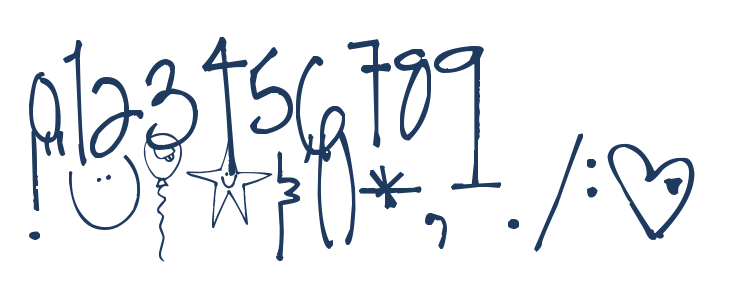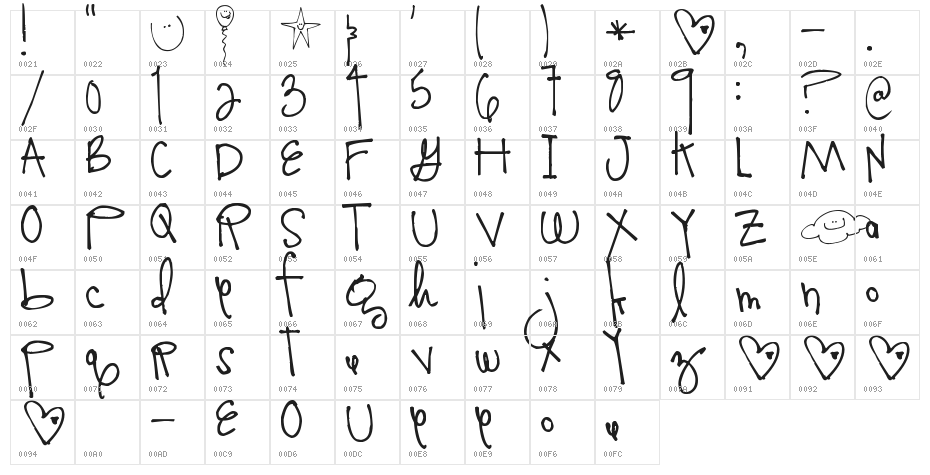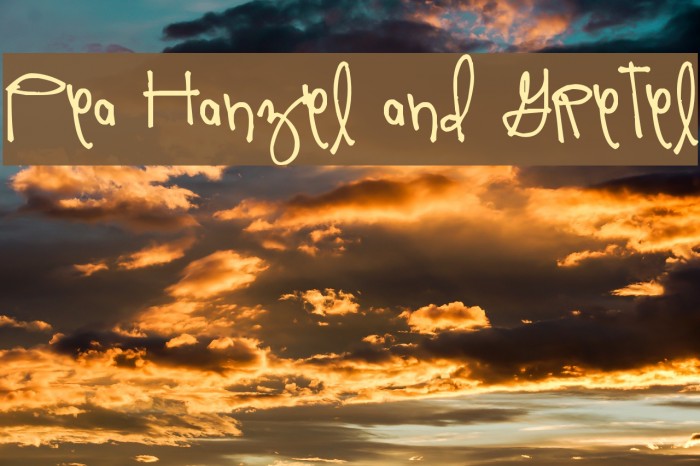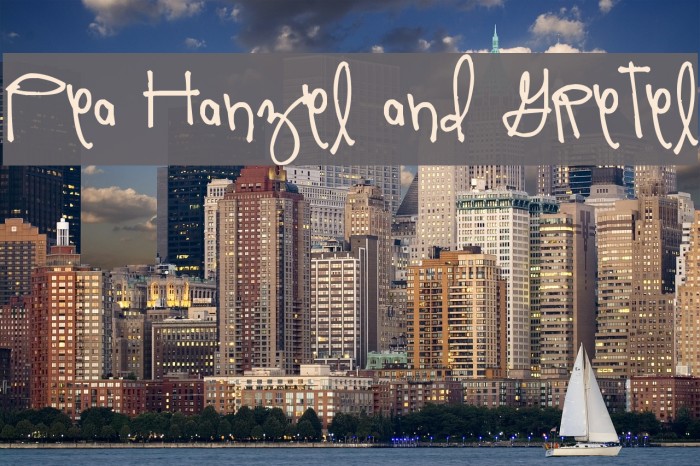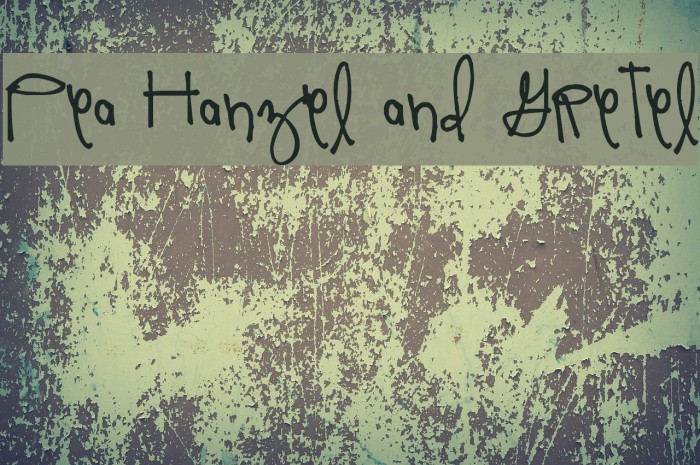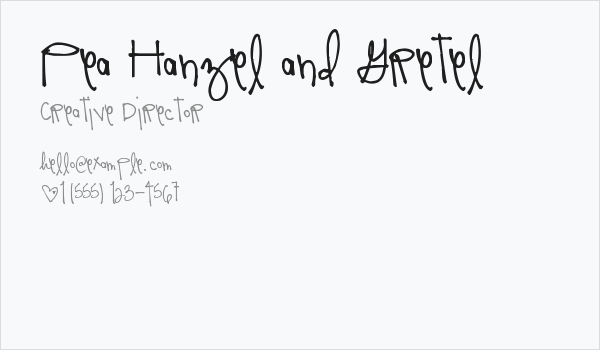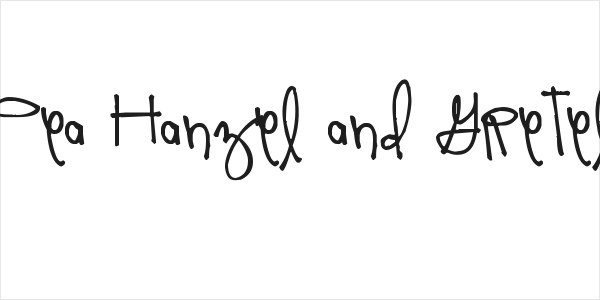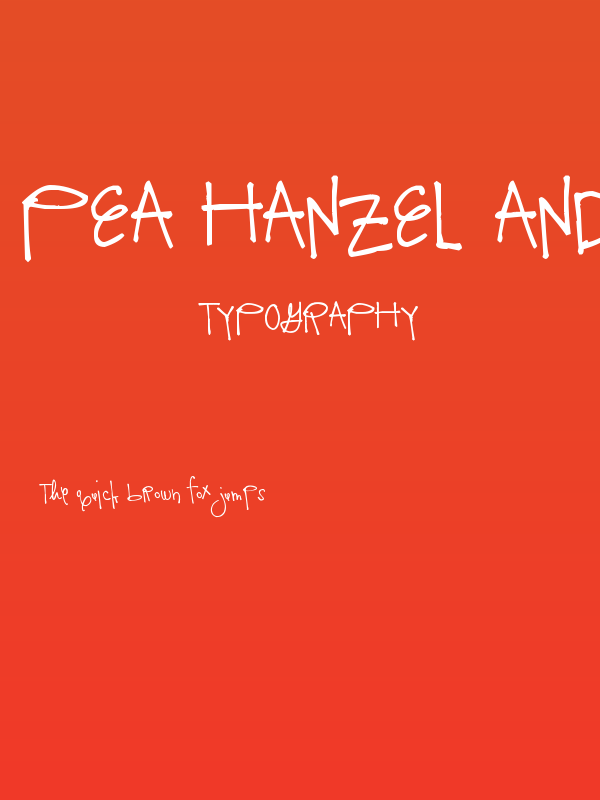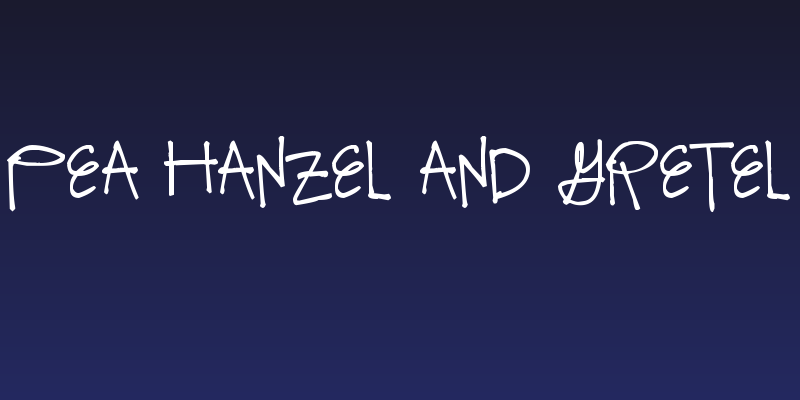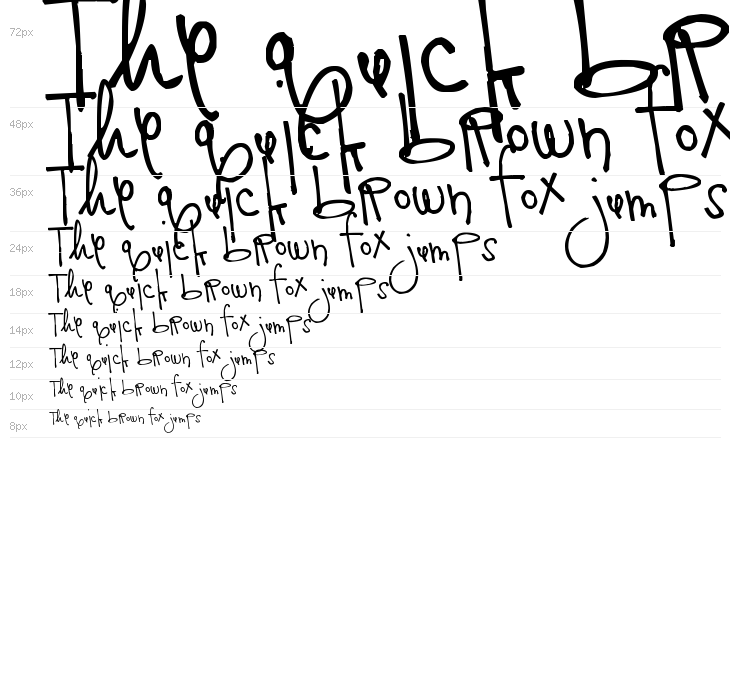
Pea Hanzel and Gretel Font
Pea Hanzel and Gretel Description
This playful and whimsical font features a handwritten style with irregular strokes and a casual, informal appearance. The letters are unevenly sized and spaced, giving it a childlike charm. The uppercase letters are tall and narrow, while the lowercase letters are more varied in height, adding to the font's quirky personality. Numbers and special characters maintain the same playful aesthetic, with some characters featuring unique decorative elements. This font exudes a sense of fun and creativity, making it ideal for projects that require a personal touch.
| Use Case | Logos, Headlines, Informal Text |
| Proposed Projects | Ideal for children's books, greeting cards, playful branding, and DIY projects. |